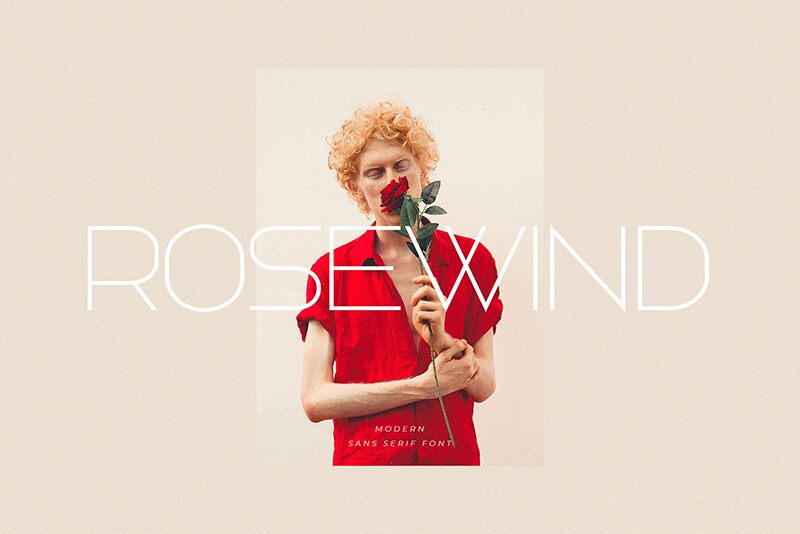
Rosewind Regular
Rosewind is a captivating sans-serif font that immediately commands attention with its striking, expanded form. Designed by BrandSemut, this font exudes a distinct air of refinement and elegance, combining clean lines with a modern, minimalist aesthetic.
The light weight of Rosewind lends it a delicate, yet impactful presence, making it an ideal choice for a wide range of design applications, from high-end branding to editorial layouts. Its expanded width adds a unique, contemporary flair, ensuring that Rosewind stands out amidst the sea of conventional typefaces.
Whether used for eye-catching headlines, sophisticated body text, or versatile display purposes, Rosewind seamlessly blends form and function, promising to elevate any project with its timeless allure and exceptional legibility.